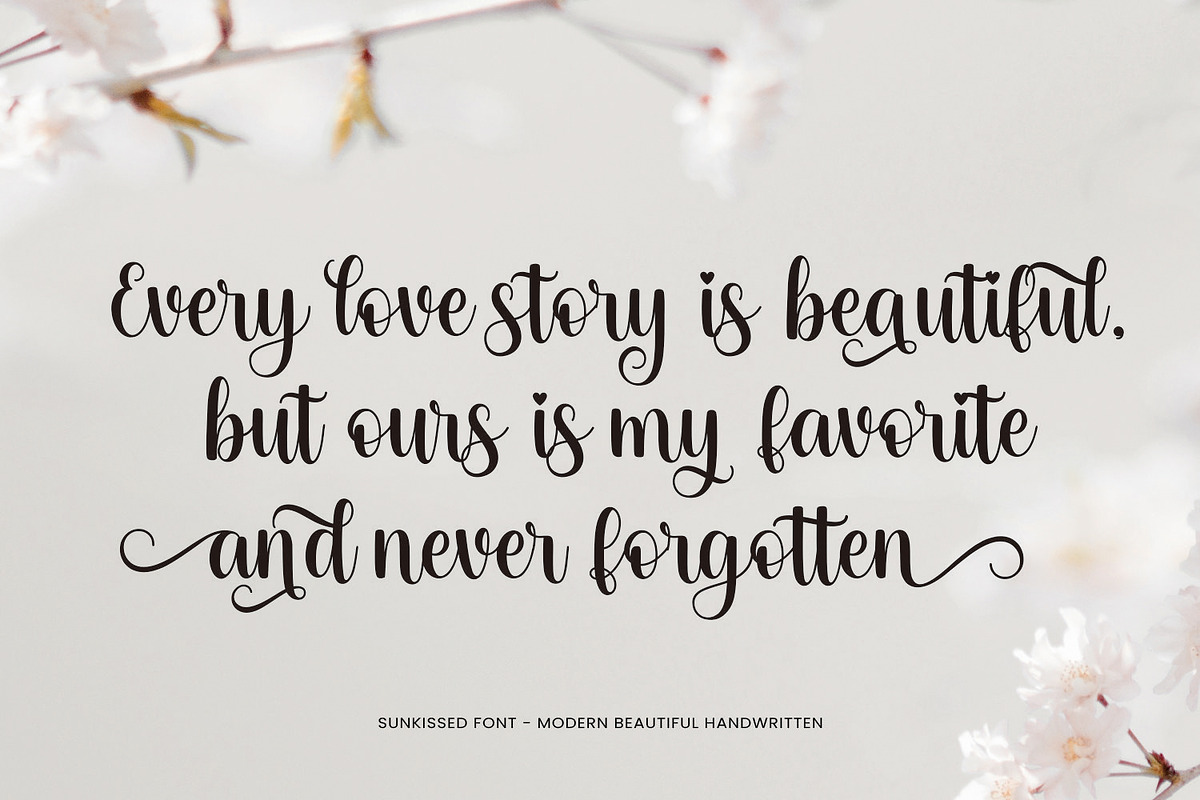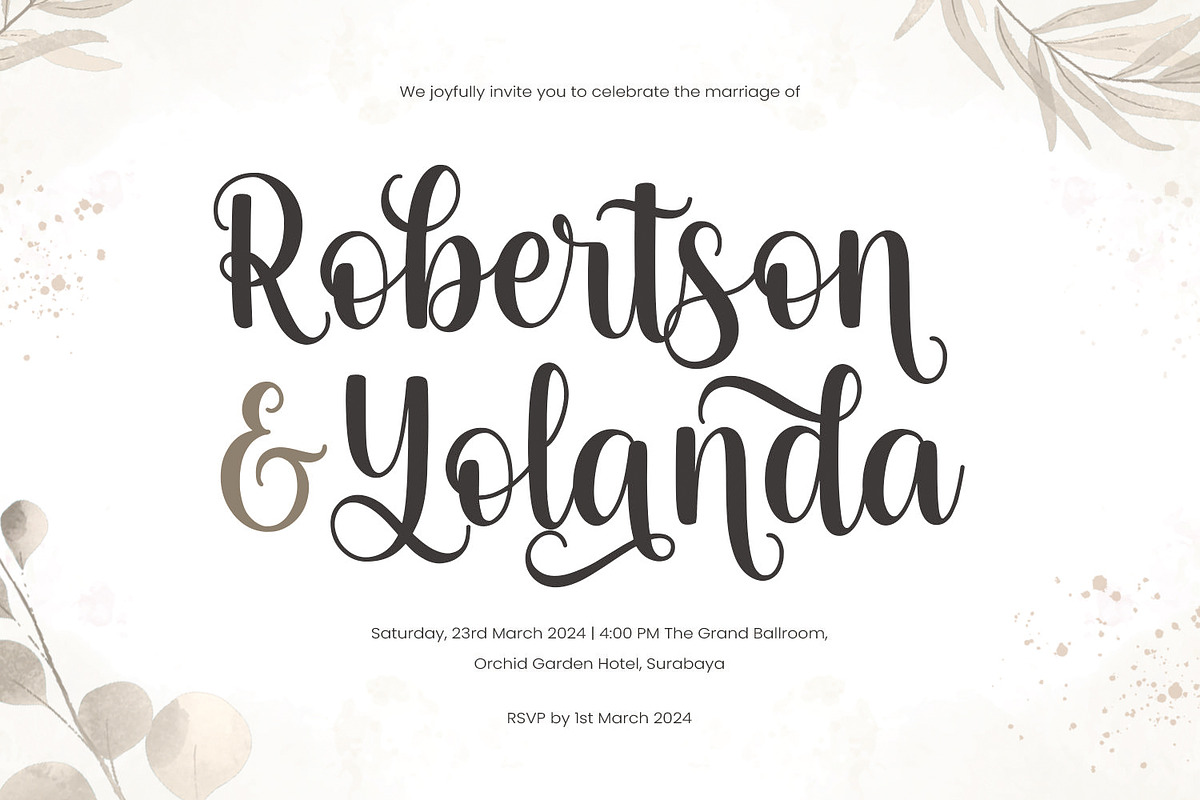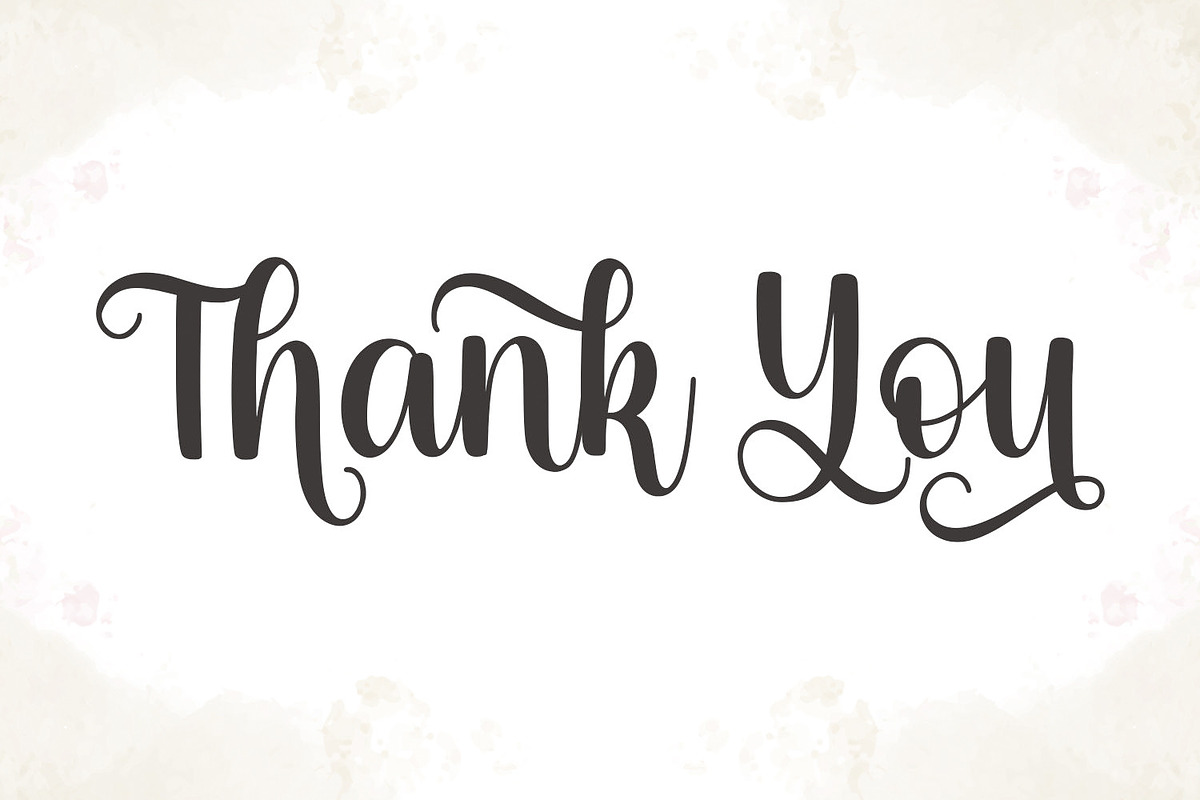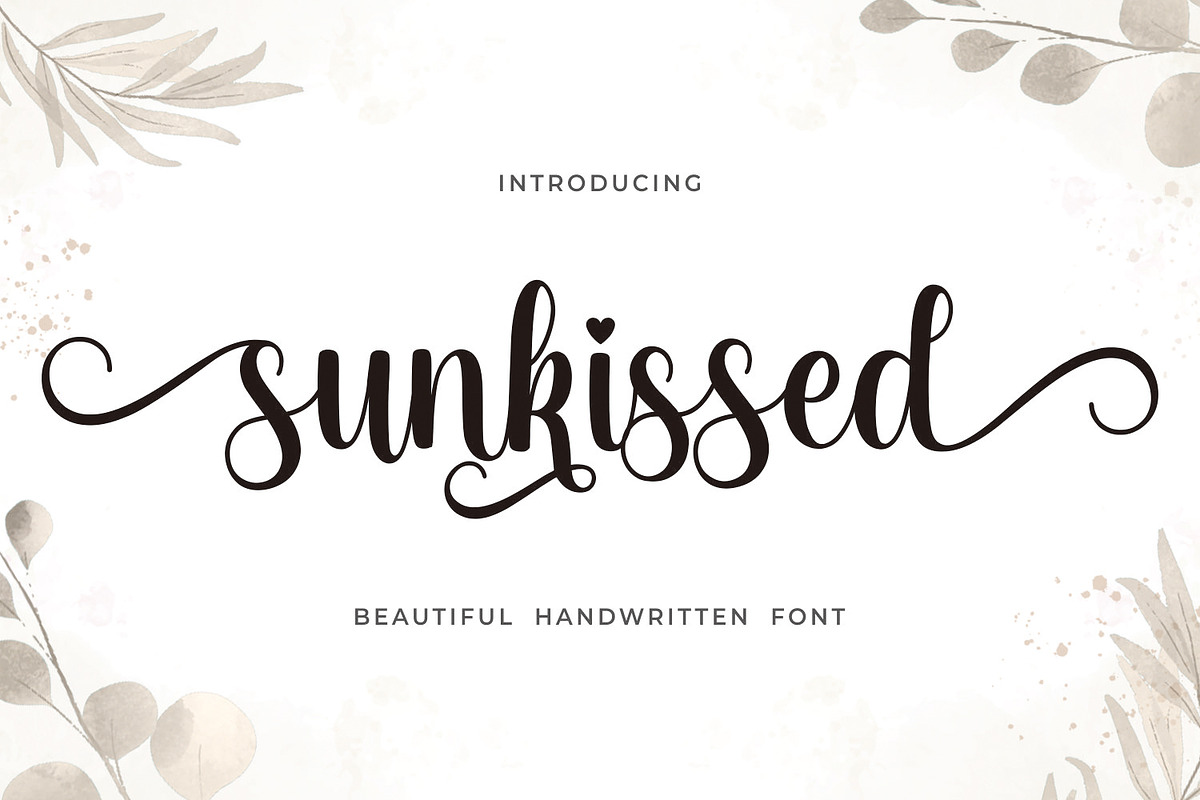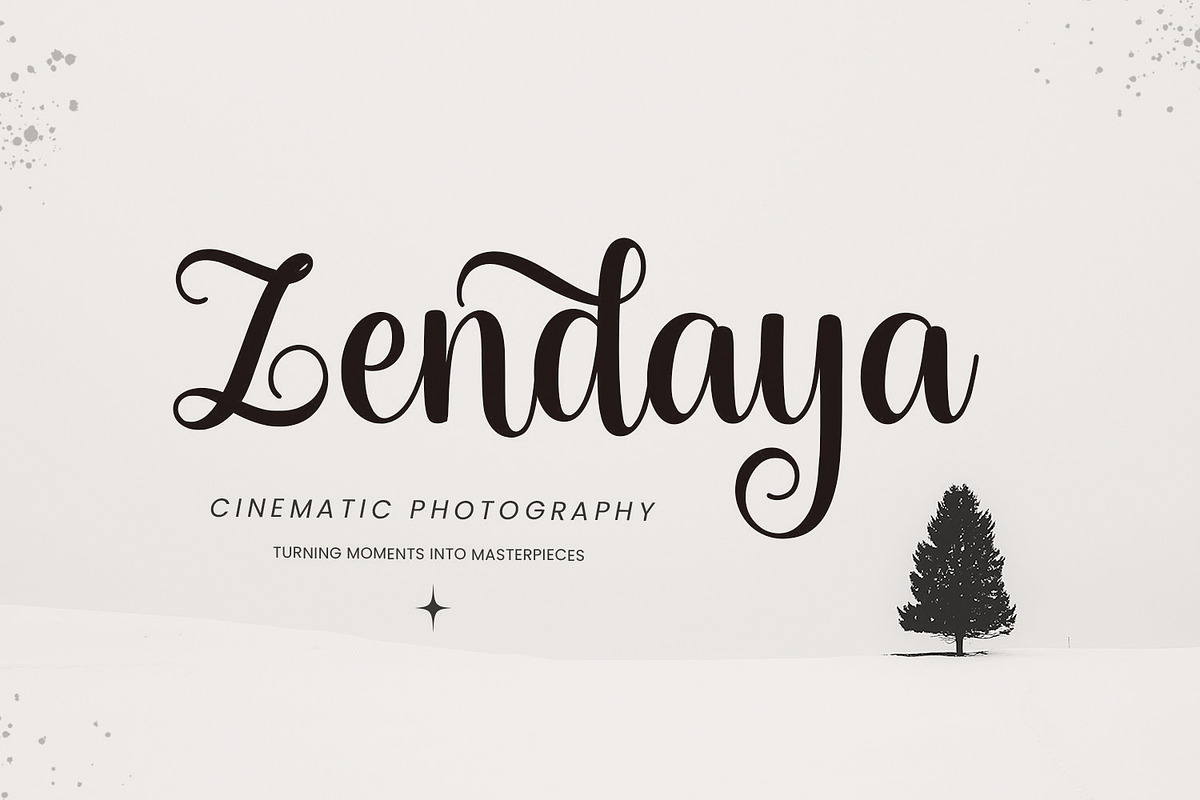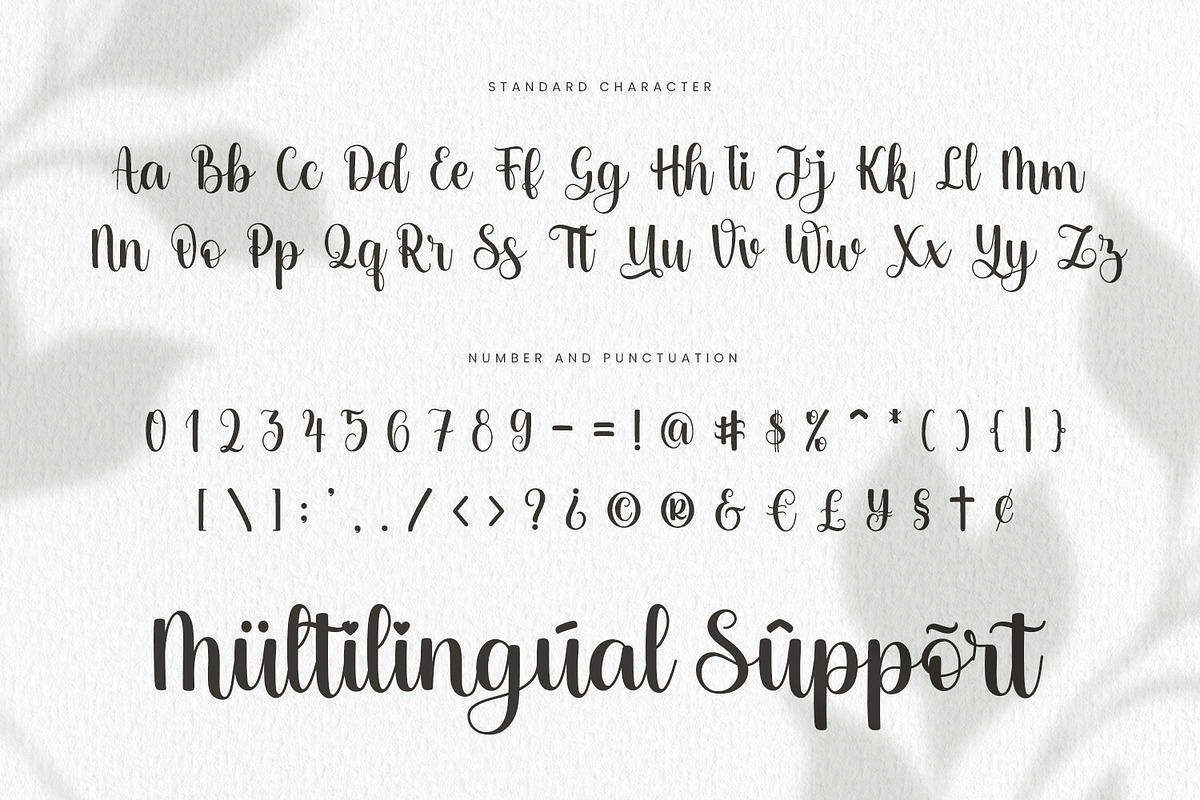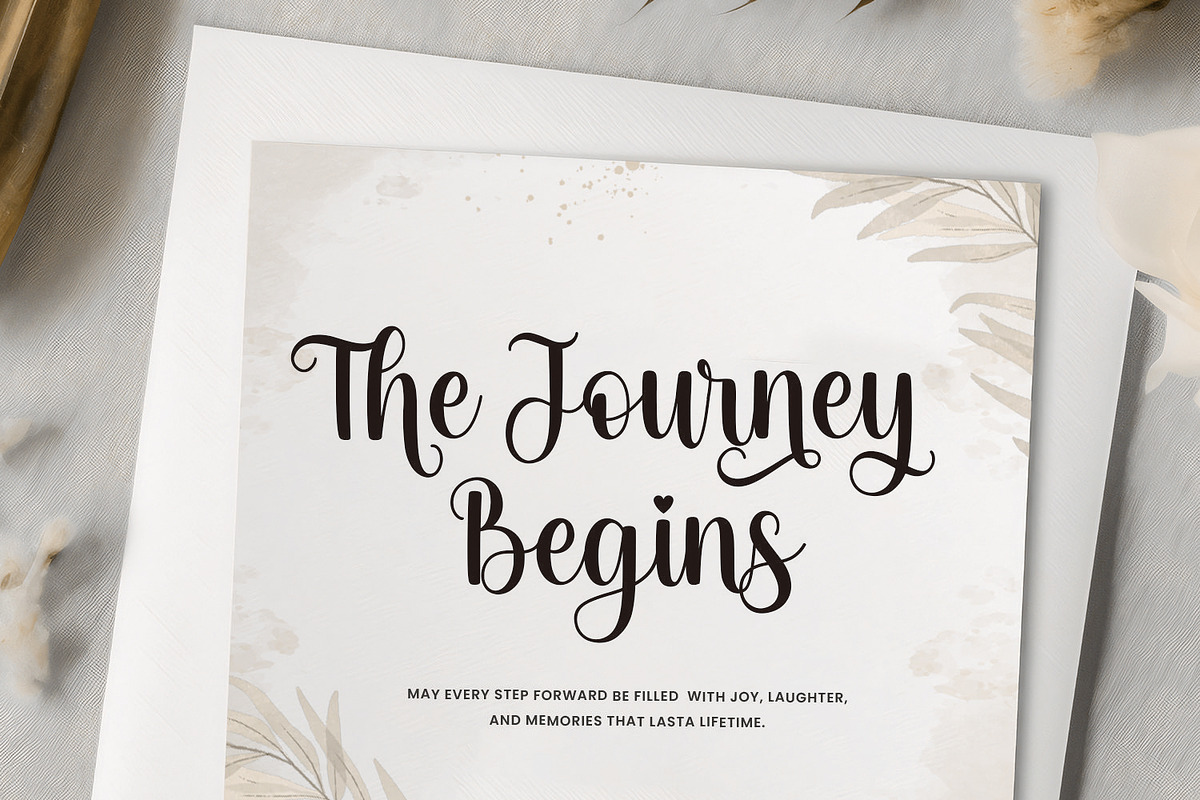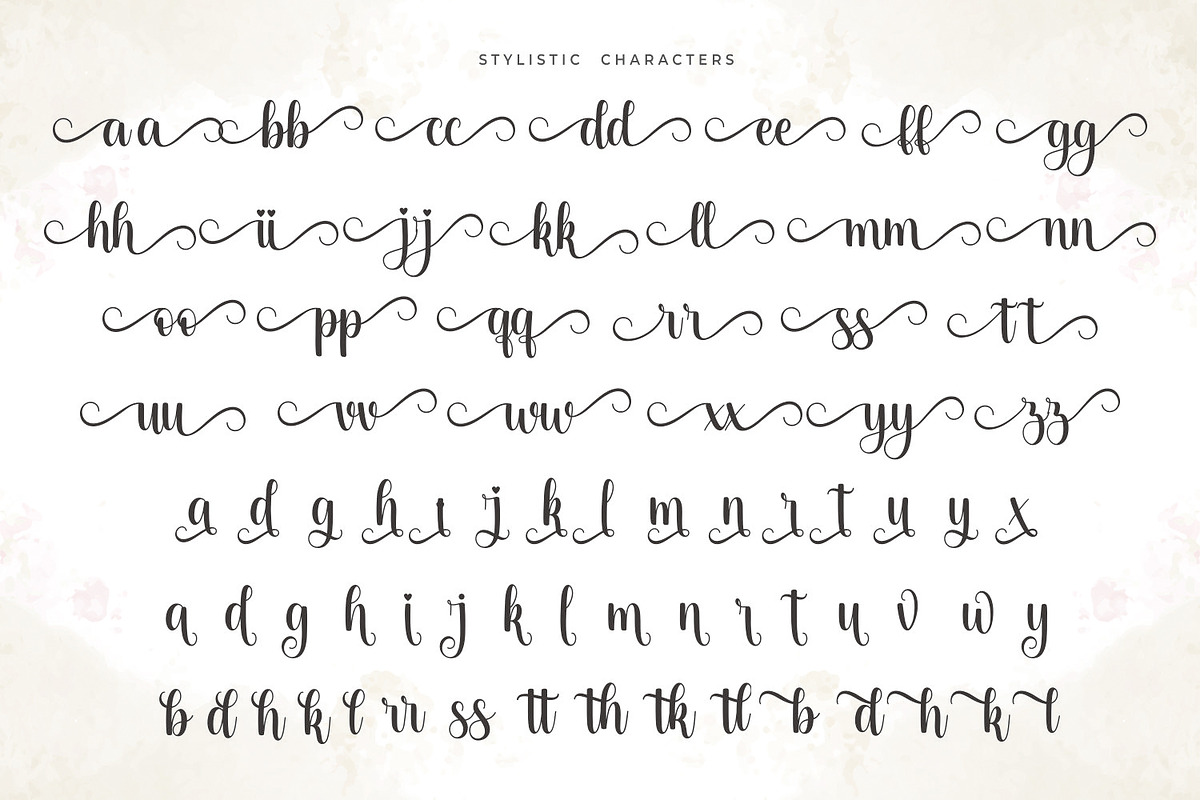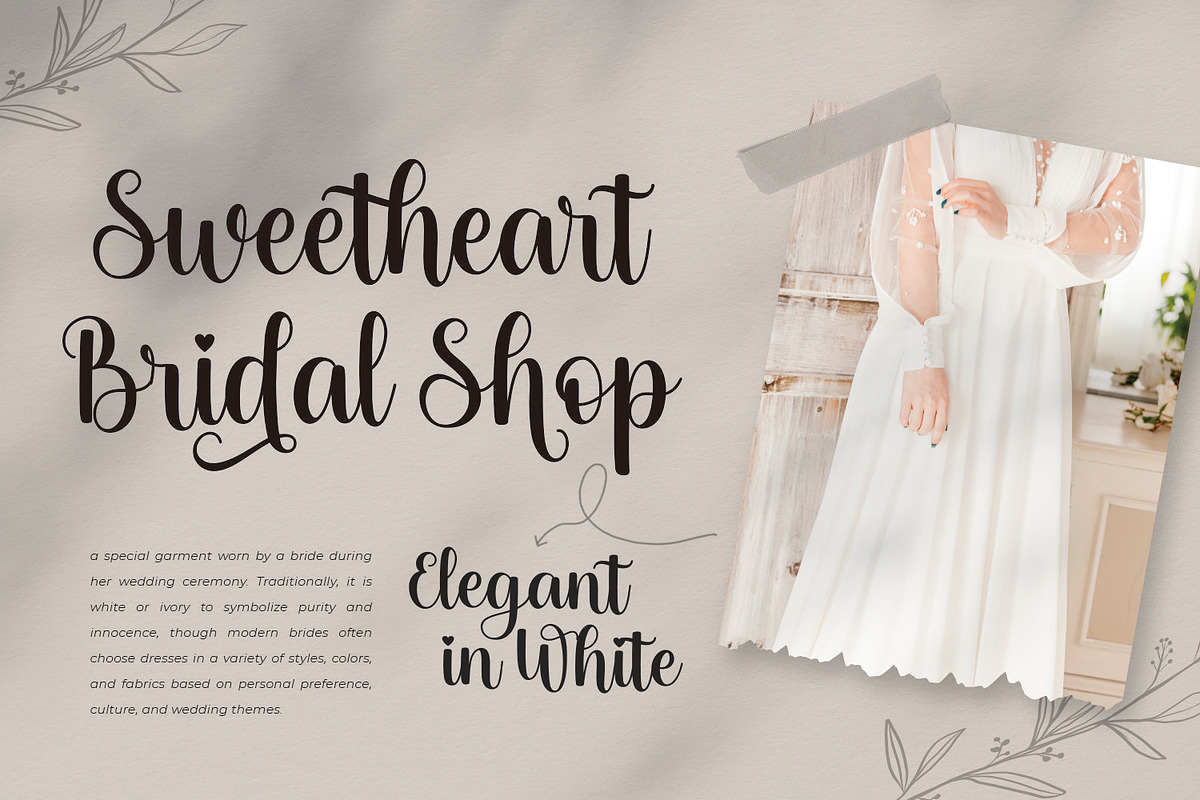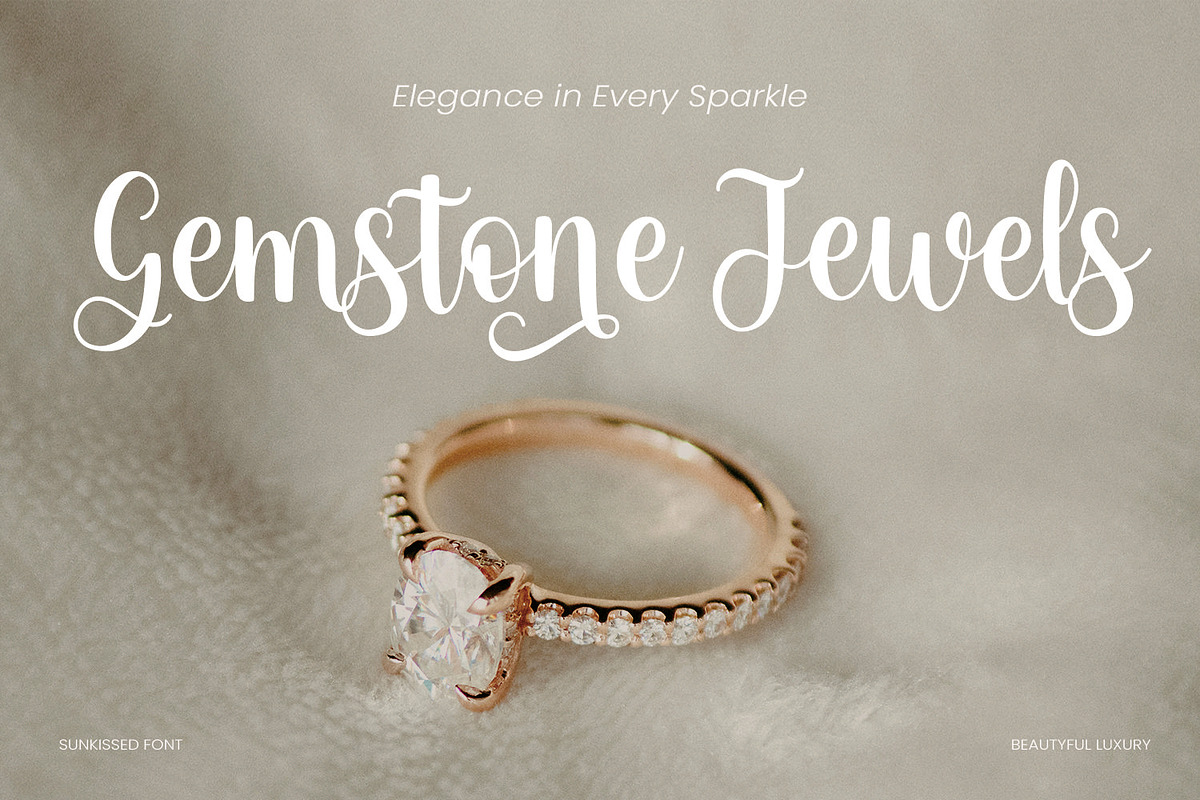
Sunkissed
Introducing Sunkissed, a breathtaking script handwritten font that radiates warmth and elegance, perfect for weddings, invitations, birthdays, and more. Each letter is beautifully crafted with beginning and ending wash tails, adding a graceful flow to your designs. Whether you're working on spring and summer projects or creating festive autumn and Christmas-themed designs, Sunkissed brings a touch of sunshine to every occasion.
Sunkissed is ideal for a wide range of creative projects, including Cricut crafts, embroidery, and DIY crafts. Its smooth and flowing script makes it the perfect choice for wedding invitations, Easter cards, Thanksgiving decorations, and so much more. The delicate strokes and thoughtful design make each letter feel personal and inviting, ensuring that your projects stand out with a unique handwritten charm.
This versatile font also features PUA encoding, giving you easy access to alternate characters and allowing you to explore creative possibilities with ease. From spring-themed crafts to elegant holiday designs, Sunkissed adds a lovely, sun-kissed flair that elevates your work. It's a must-have for crafters, designers, and anyone looking to bring a touch of warmth and sophistication to their creations.